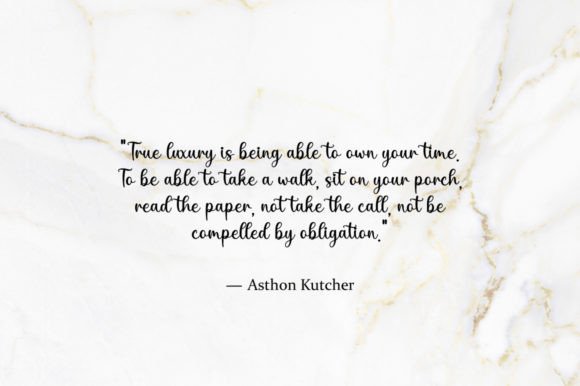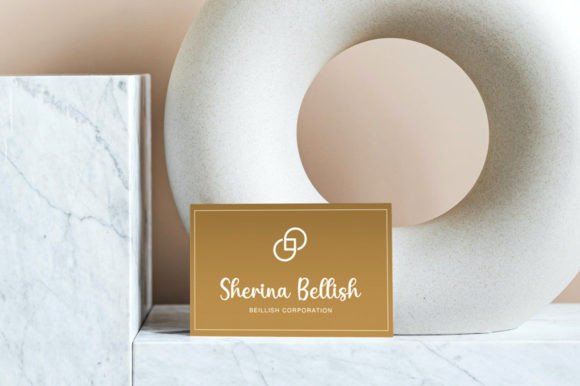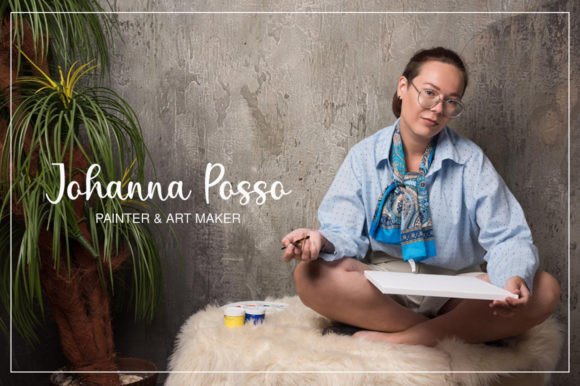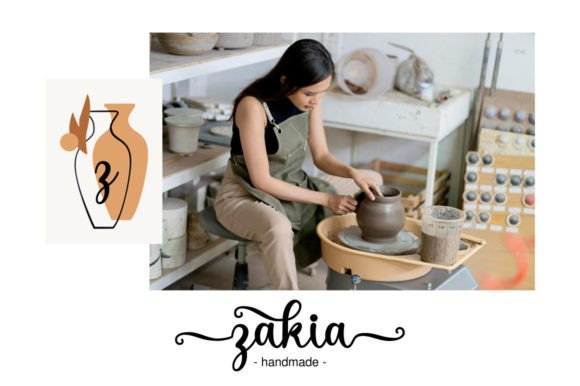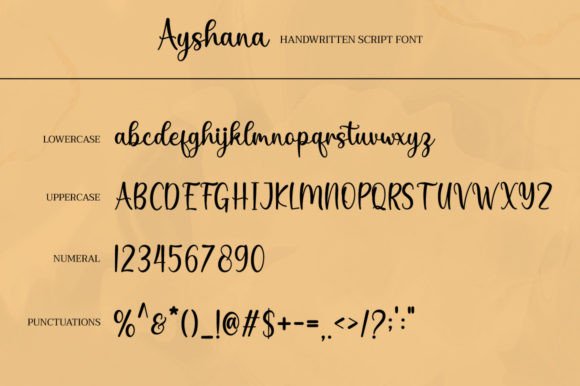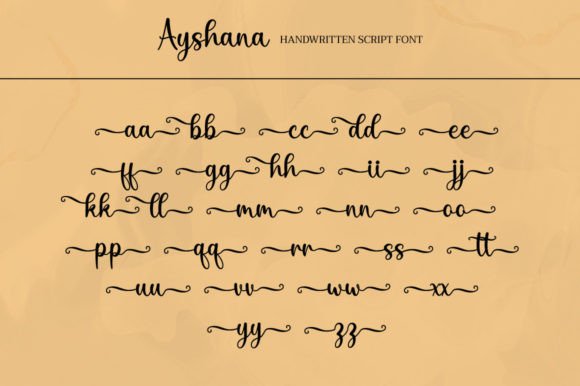
Ayshana Font: Elevate Your Designs with a Timeless Handwritten Style
Are you on the hunt for a font that exudes elegance, sophistication, and a touch of whimsy? Look no further than Ayshana Font, a lovely and timeless handwritten font that’s perfect for creating eye-catching logos, branding, and quotes. In this article, we’ll dive into the world of Ayshana Font, exploring its features, benefits, and uses, and why it’s a must-have for designers and crafters alike.
The Charm of Ayshana Font
Ayshana Font is a beautiful, handwritten font that’s been crafted to bring a touch of warmth and personality to your designs. Its timeless style ensures that it will never go out of fashion, making it a versatile choice for a wide range of projects. Whether you’re creating a logo, branding materials, or social media graphics, Ayshana Font is the perfect choice for adding a dash of elegance and sophistication.
PUA Encoding: Unlocking Endless Creative Possibilities
One of the standout features of Ayshana Font is its PUA (Private Use Area) encoding. This means that you can access all of the glyphs and swashes with ease, giving you endless creative possibilities. With PUA encoding, you can:
- Access a wide range of alternative characters and ligatures
- Mix and match glyphs to create unique and personalized designs
- Experiment with different swashes and flourishes to add texture and interest
Ayshana Font is a dream come true for designers and crafters. Its versatility and flexibility make it perfect for a wide range of projects, including:
- Logo design: Create stunning logos that showcase your brand’s personality and style
- Branding: Develop a consistent visual identity with Ayshana Font’s elegant and sophisticated style
- Quotes and typography: Add a touch of whimsy and elegance to your quotes and typography projects
- Stationery and invitations: Create beautiful stationery and invitations that make a lasting impression
Why Choose Ayshana Font?
So why choose Ayshana Font over other fonts on the market? Here are just a few reasons:
- Unique and timeless style: Ayshana Font’s handwritten style is both elegant and sophisticated, making it perfect for a wide range of projects
- PUA encoding: With PUA encoding, you can access a wide range of glyphs and swashes, giving you endless creative possibilities
- High-quality design: Ayshana Font has been carefully crafted to ensure that it’s of the highest quality, with crisp and clear lines
Tips and Tricks for Using Ayshana Font
Here are a few tips and tricks for getting the most out of Ayshana Font:
- Experiment with different glyphs and swashes to add texture and interest to your designs
- Pair Ayshana Font with other fonts to create a unique and personalized look
- Use Ayshana Font for headlines and titles to add a touch of elegance and sophistication
- Don’t be afraid to get creative and try new things – Ayshana Font is a versatile font that’s perfect for experimenting with different design styles
In conclusion, Ayshana Font is a must-have for designers and crafters looking to add a touch of elegance and sophistication to their designs. With its timeless handwritten style, PUA encoding, and ease of use, Ayshana Font is the perfect choice for a wide range of projects. Whether you’re creating logos, branding materials, or social media graphics, Ayshana Font is sure to elevate your designs and help you stand out from the crowd.